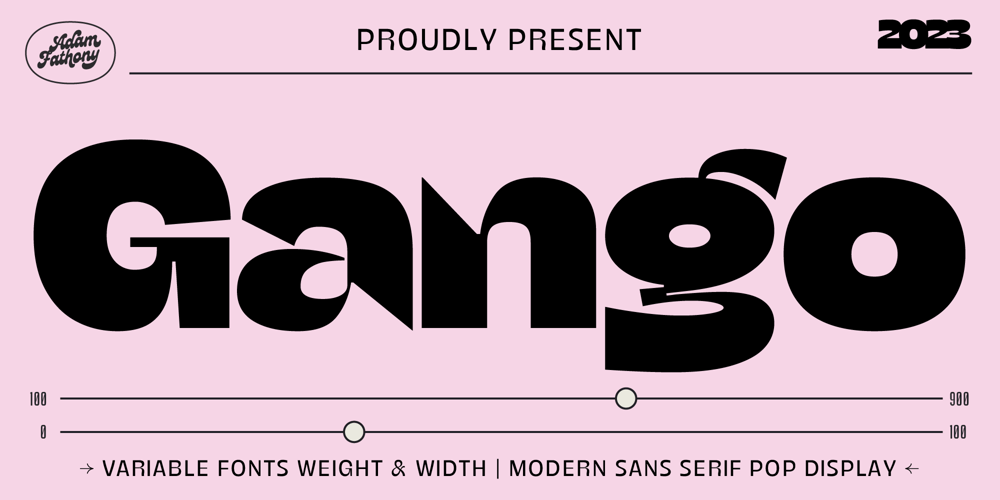
Gango Font Family was designed by Adam Fathoni Haris and published by Adam Fathony. Gango contains 19 styles and family package options. Introducing Gango, the ultimate Variable Font that combines sleek modernity with a playful pop style. This versatile typeface is designed to meet all your creative needs with its ten unique weights, ranging from the delicate Thin and Extra Light to the bold and heavy Extra Bold Heavy. Gango offers you complete control over your typography, allowing you to adjust the font’s weight and width seamlessly, all in one font file.